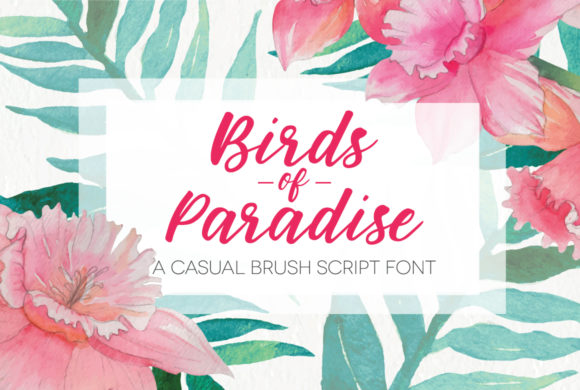
Behold the majestic Birds of Paradise font, a captivating script font family that embodies the essence of creativity and spontaneity. Inspired by the vibrant hues and playful forms of nature, Birds of Paradise dances across the digital canvas with an irresistible charm.
Enter a world where your words take flight, adorned with the whimsical strokes of Birds of Paradise. Its casual and playful demeanor brings a touch of whimsy to your designs, while its clean and slightly quirky character adds a dash of individuality. Whether you're crafting logos, branding materials, social media posts, or expressing your creativity through crafty DIY projects, Birds of Paradise is your perfect companion.
With Birds of Paradise, you'll discover a font that effortlessly blends the beauty of handwritten strokes with the precision of digital artistry. Each letter dances across the page with a captivating rhythm, as though guided by an invisible brush. Experience the joy of creating designs that resonate with authenticity and uniqueness, leaving a lasting impression on your audience.
Imagine your logos and branding materials adorned with the enchanting curves of Birds of Paradise. Its playful and approachable nature invites customers to engage with your brand, creating a lasting connection that fosters loyalty and trust. Unleash your creativity on social media, where Birds of Paradise transforms your posts into captivating works of art, sure to captivate your followers and leave them wanting more.
Step into a world of endless possibilities with Birds of Paradise. Its versatility knows no bounds, allowing you to effortlessly elevate your designs and add a touch of magic to every project. From delicate wedding invitations to playful children's books, from elegant business cards to eye-catching posters, Birds of Paradise seamlessly adapts to your vision, bringing your ideas to life with remarkable elegance and flair.
Embrace the boundless creativity that awaits you with Birds of Paradise. Let your imagination soar as you craft designs that captivate and inspire, leaving an unforgettable mark on the hearts of your audience. Discover the joy of effortless self-expression and turn your creative dreams into a stunning reality. Dive into the world of Birds of Paradise today and let your creativity take flight!